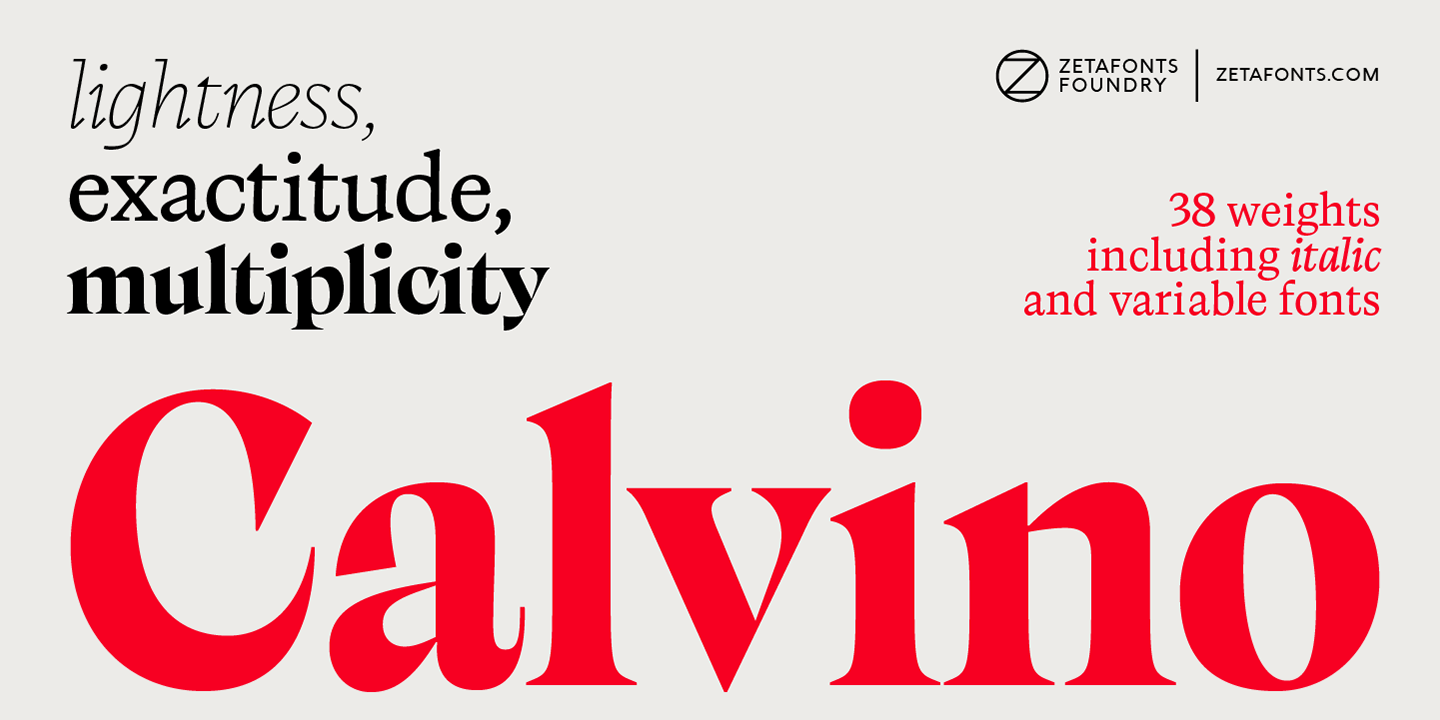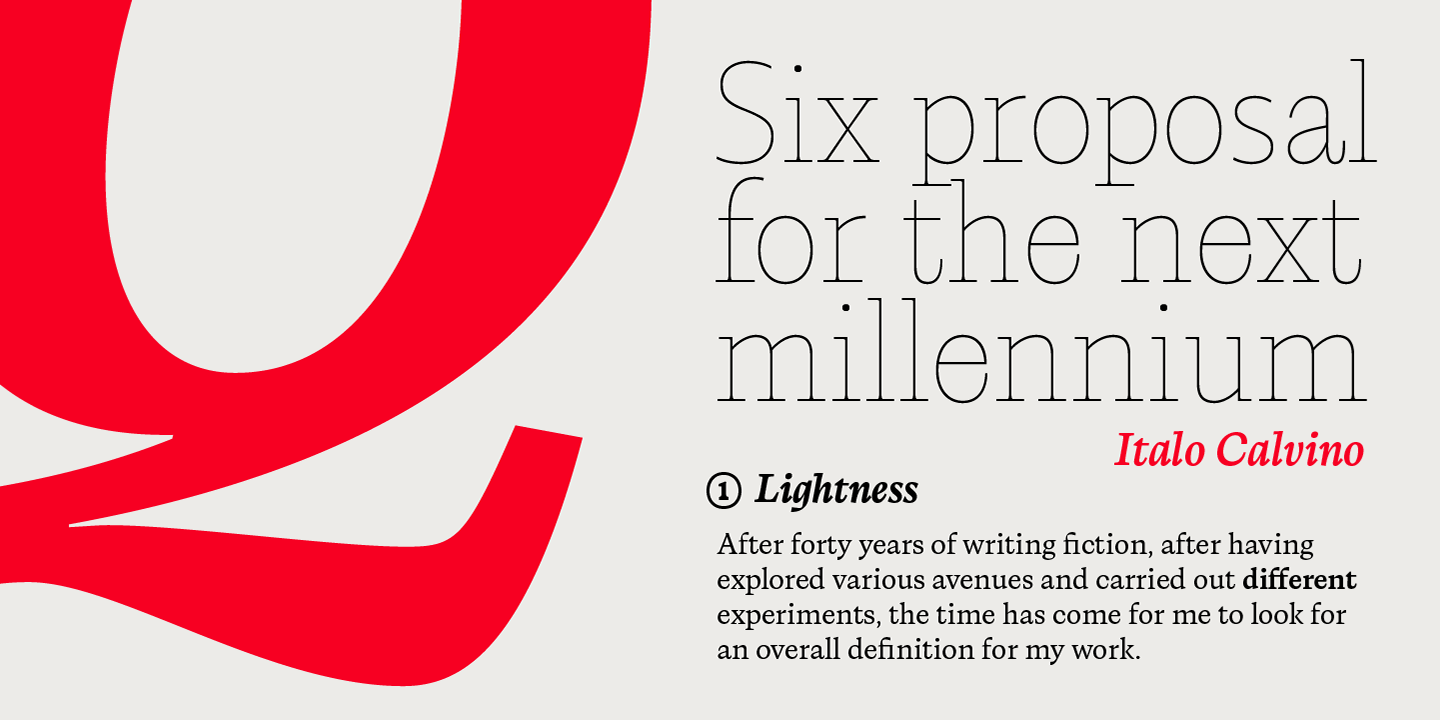
About the Calvino Font
About Calvino Font Family In designing the Calvino typeface family Andrea Tartarelli set himself the challenge to follow the principles expressed by the Italian writer Italo Calvino in his masterpiece Six memos for the next millenium, Exactitude and visibility are translated typographically through the reference to sixteen century garalde typography and its controlled, highly legible letterforms
To balance this formal rigour, lightness and quickness were added by letting the design be inspired by the calligraphic hand, following the lesson of Gudrun Zapf, The idea of multiplicity was kept central, developing Calvino in a range of weights encompassing both display and text use cases, and then expanding the design space with the inclusion of a display sub-family, Calvino Grande, to provide users with a full typographic palette to cover all editorial needs
Sharing the same formal structure, Calvino Grande sports condensed proportions, sharper details and tighter metrics, Both Calvino and Calvino Grande are complemented with a set of italic letterforms, with differences in design and slant to better work at different point size
All the 34 weights of the Calvino family come with a extended Latin and Cyrillic charset, covering over two hundred languages, and all equipped with a wide range of open type features including positional numerals, alternate forms, and stylistic sets
Four variable typefaces are also included in the full package, for any need of fine-tuning the typeface grade of weight, Special thanks go to Laurène Girbal for the help in developing the regular weight, • Suggested uses: Calvino aims to provide users with a full typography palette to cover all editorial needs